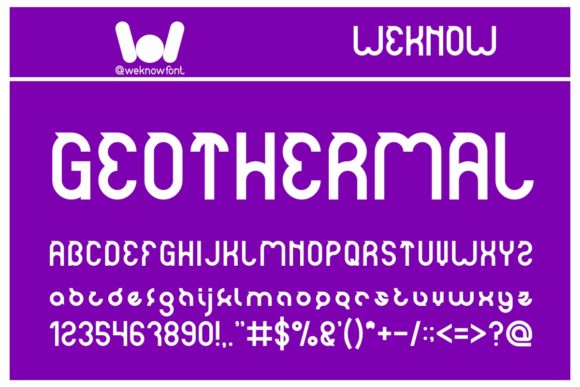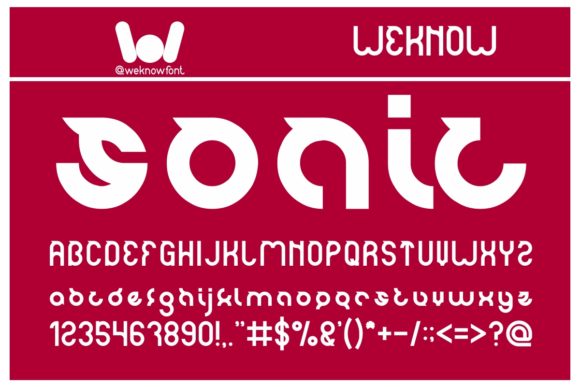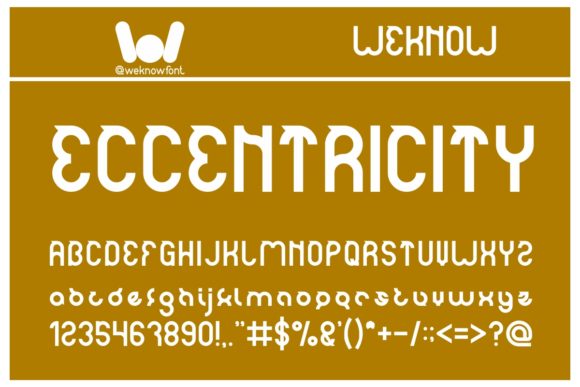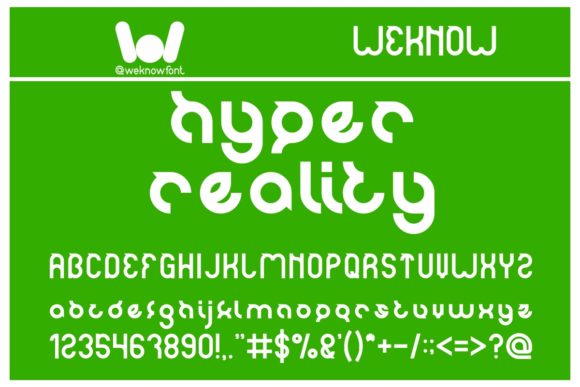
Introduction to Noa Katz Font
Have you ever stumbled upon the perfect font while working on a creative project, and suddenly your vision comes to life? That’s exactly what happened when I discovered the Noa Katz Font. This techno style display font is a game-changer for any crafting project that requires a personalized look.
Noa Katz Font is a valuable design resource for designers and crafters alike, offering a high-quality, transparent background that’s perfect for creating visually striking designs. With its unique style and modern aesthetic, this font is sure to elevate any project from ordinary to extraordinary. Whether you’re working on a digital design or a physical craft, Noa Katz Font is an excellent choice for those who crave a truly unique look.
Key Features of Noa Katz Font
- High-quality design resource ideal for creative projects, including graphic design, digital art, and more.
- Noa Katz Font is a unique and creative design resource, perfect for adding a touch of personality to any project.
- Designed with a modern and stylish aesthetic, making it an excellent choice for designers looking for a high-quality font.
Honest Review: Noa Katz Font
I recently had the chance to work with the Noa Katz Font, and I must say it’s a solid addition to any designer’s toolkit. This free download is a high-quality design resource that can elevate your creative project to the next level.
- ✨ High-quality characters: The font is crisp and clean, making it perfect for both digital and print projects.
- ✨ Versatile: The Noa Katz Font is suitable for a wide range of creative projects, from logos to branding materials.
- ⚠️ Limited font styles: The Noa Katz Font only comes in a few different styles, which may limit its versatility for more complex projects.
Overall, I’m impressed with the Noa Katz Font, and I would definitely recommend it to designers looking for a high-quality, free design resource. While it may have some limitations, its versatility and high-quality characters make it a great addition to any toolkit.
The Noa Katz Font is ideal for various creative projects, including graphic design, branding, and digital art. Its versatility and high-quality features make it a valuable resource for designers and artists.